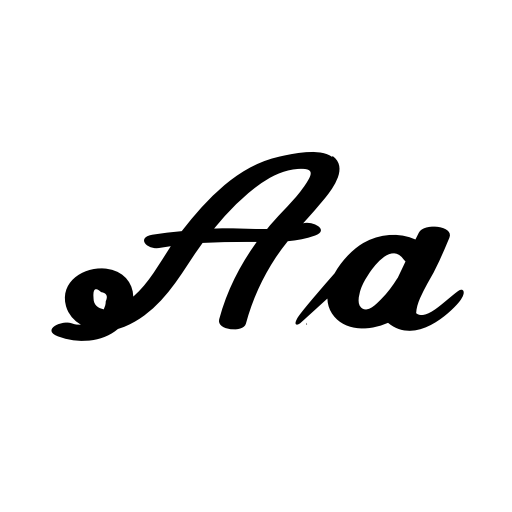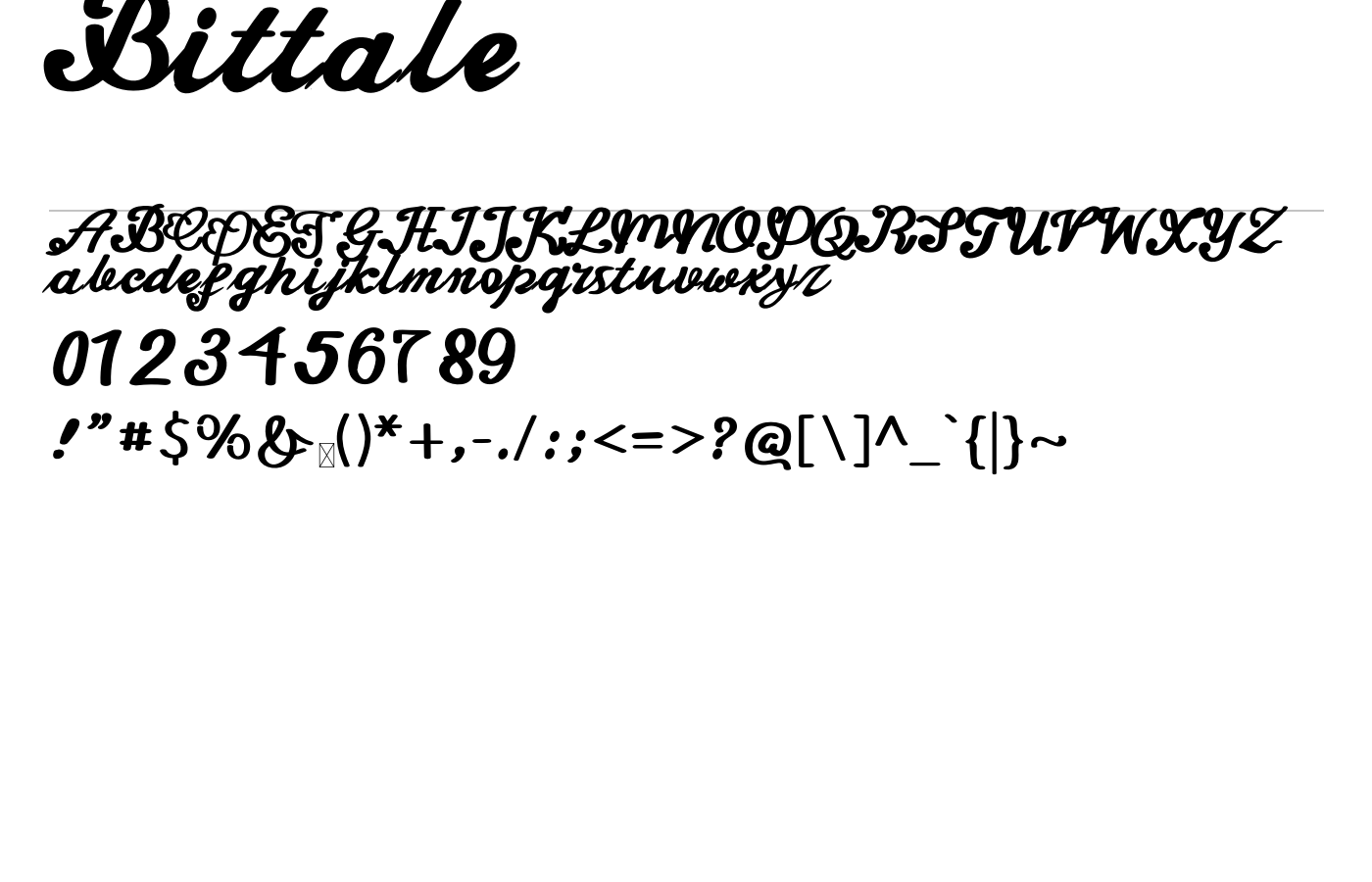
Bittale is a bold, script-style font with a vintage and playful charm, featuring smooth, rounded strokes and a flowing, connected letterform that evokes a handwritten feel. Its moderate contrast and decorative details make it an excellent choice for logos, invitations, and branding that aims to convey warmth and personality. This font works best in display uses where its unique character can shine and add a touch of nostalgic elegance.
Bittale Font
About Bittale Font
| Font family | Bittale Font |
| Designer | Doni Dorra |